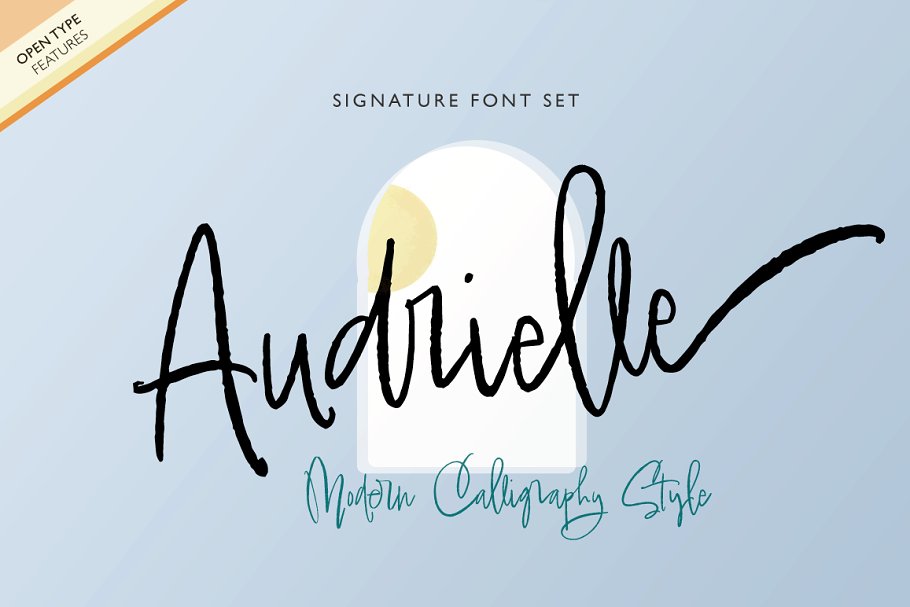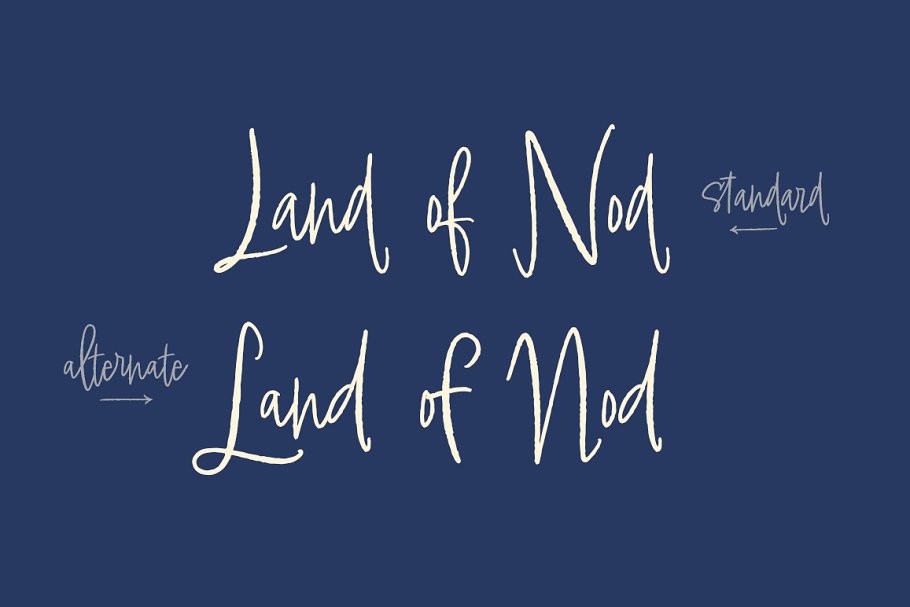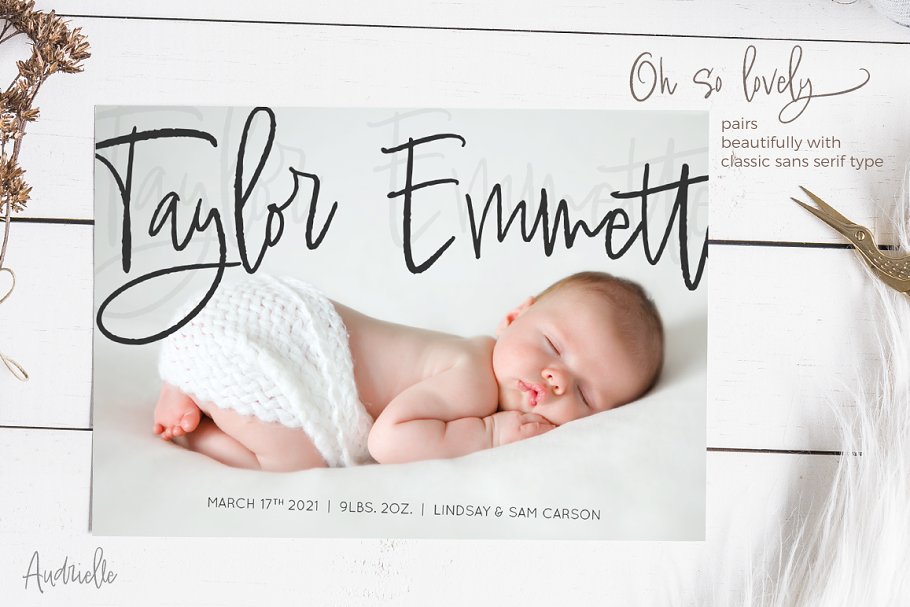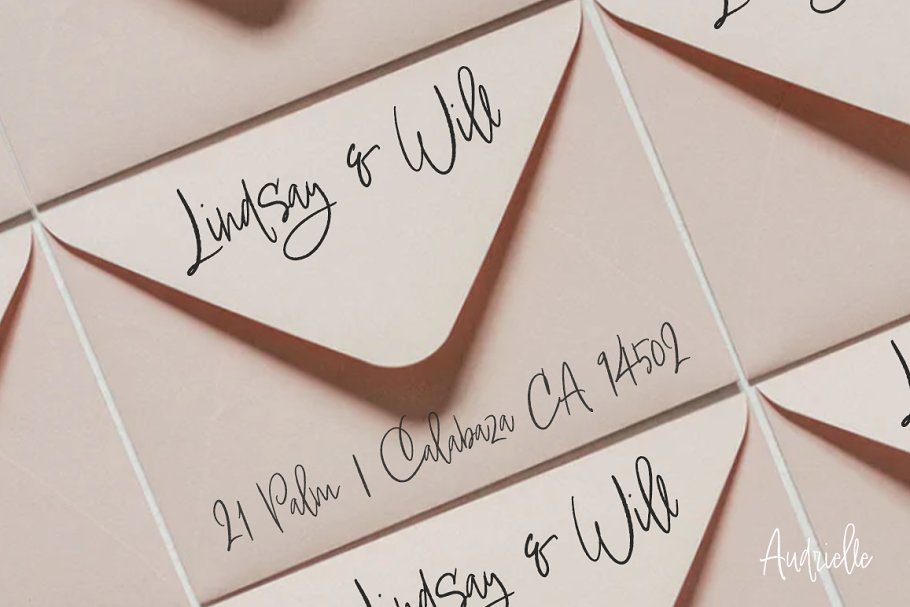
About the Audrielle
Audrielle, a stylish modern calligraphy script with lots of personality, Beautiful Opentype features with lovely standard ligatures replicating natural handwriting, Easily personalize her appearance utilizing her many alternative glyphs, ligatures and swashes, She’s a natural for logos, stationery and product design projects looking for a dynamic personal vibe